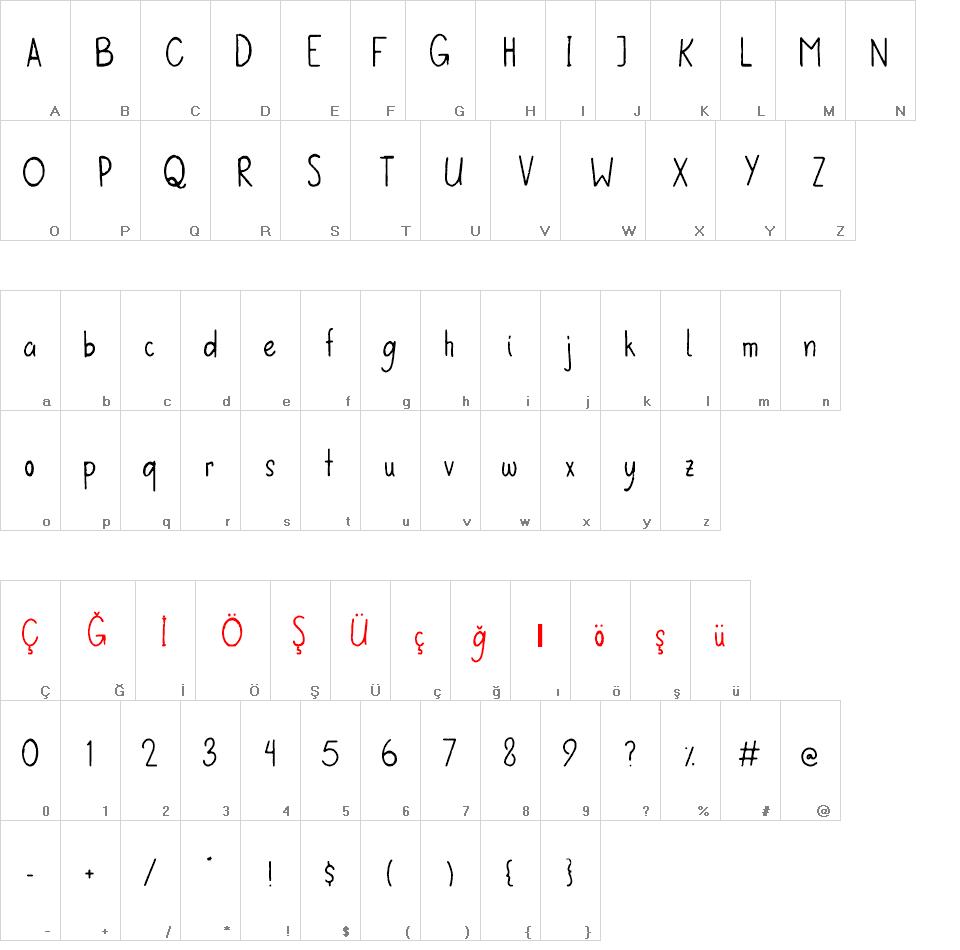
Kiddiewink font
Kiddiewink is a sweet and friendly handwritten font. Its natural and unique style makes it incredibly fitting to a large pool of designs.